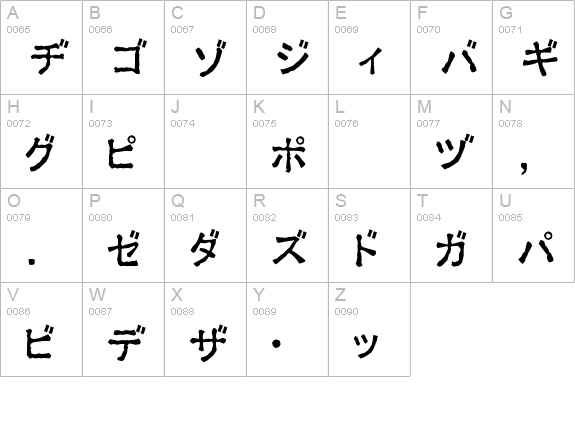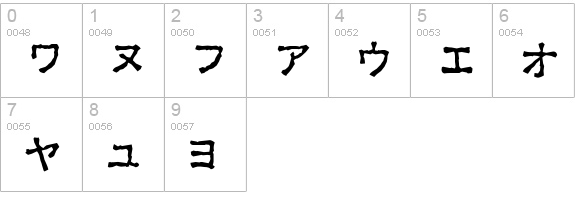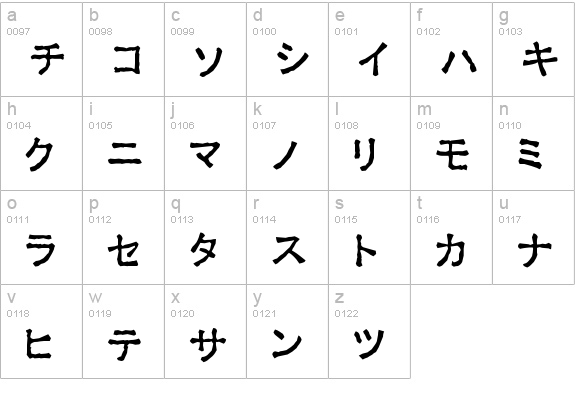
Ex Kata Opaque Font Details
Ex Kata Opaque is a stunning display font that exudes elegance and sophistication. Its unique design features bold, sharp lines that make a powerful statement when used in headlines or branding materials. This font is perfect for adding a touch of modern flair to any project, whether it's a website, poster, or logo. What makes Ex Kata Opaque even more appealing is that it is available for free download at FontsMarket.com. This means you can easily access this beautiful font without any cost, making it a valuable addition to your design toolkit. With its sleek and contemporary look, Ex Kata Opaque is sure to elevate your designs and make them stand out from the crowd.